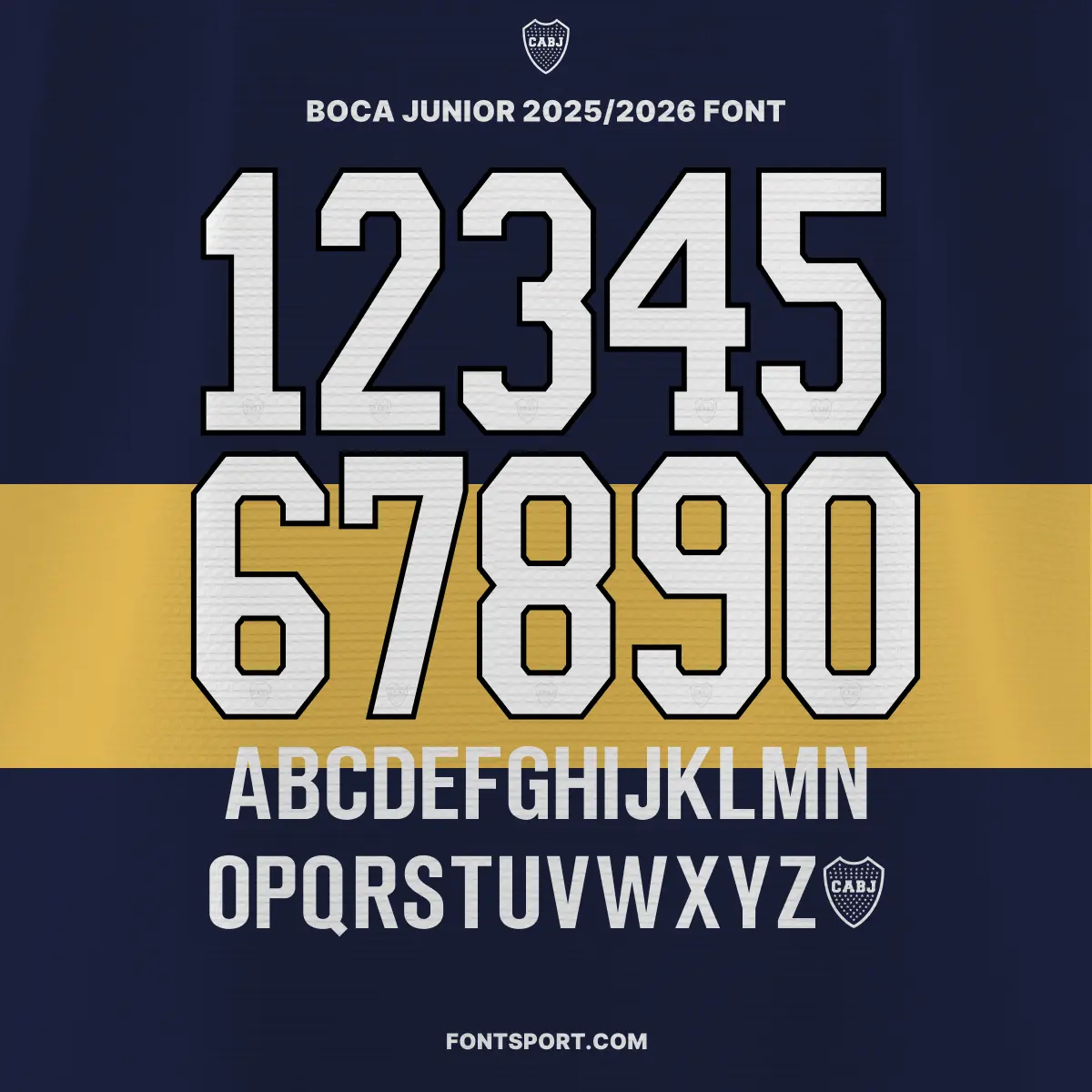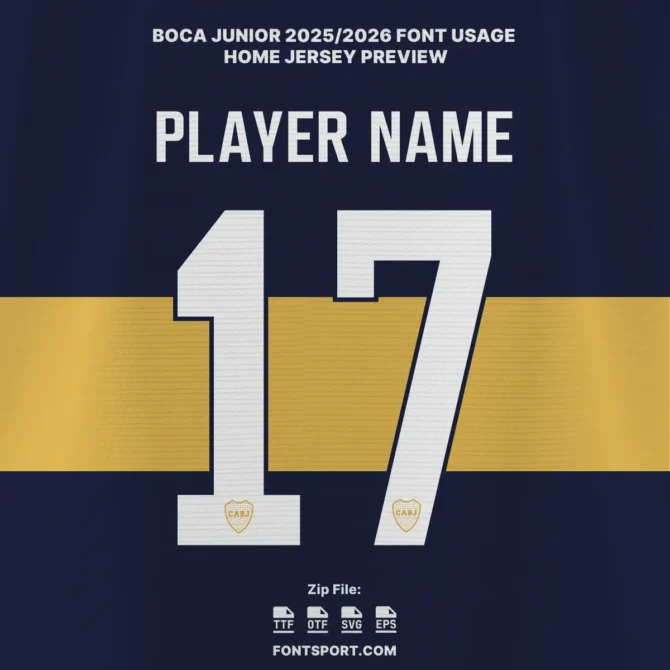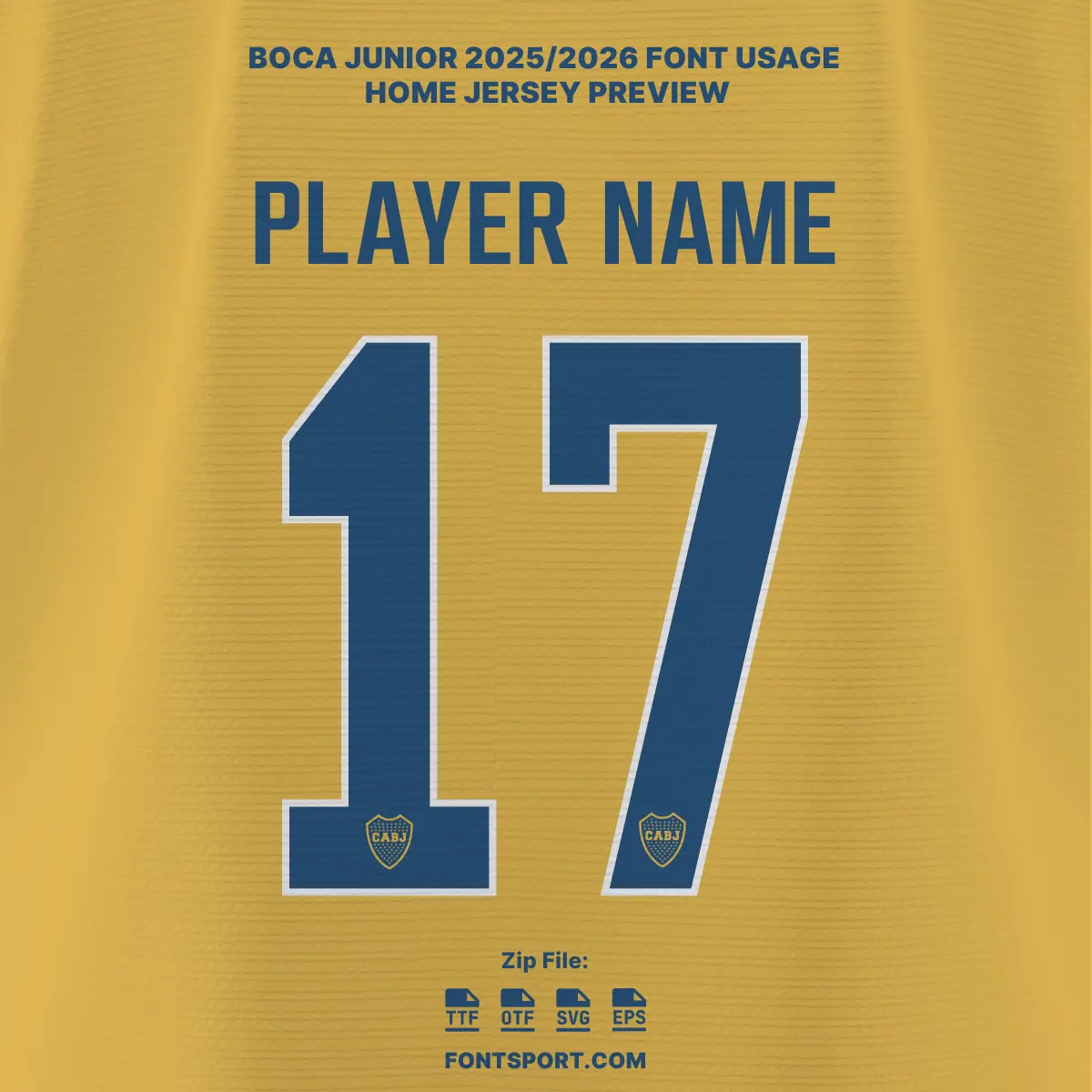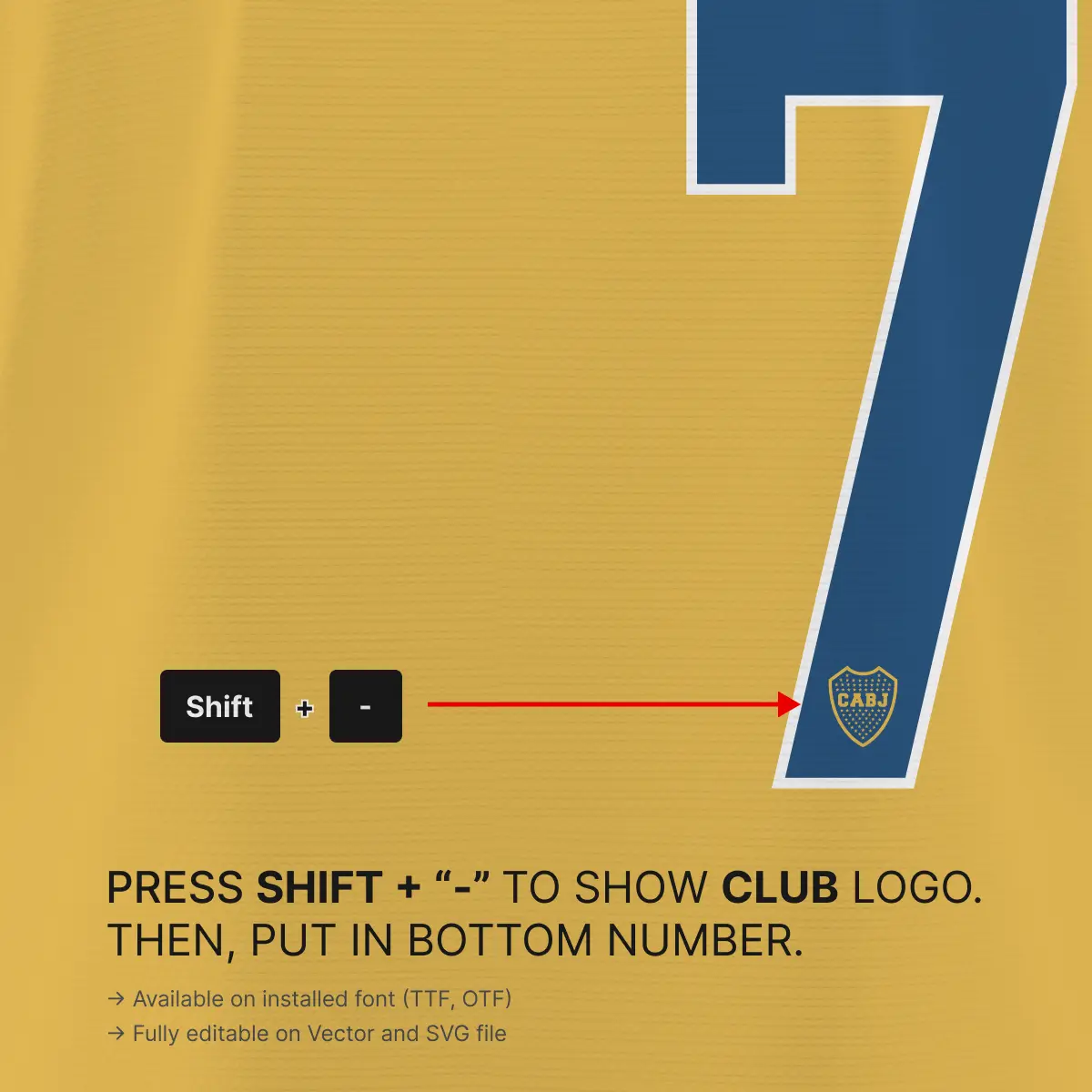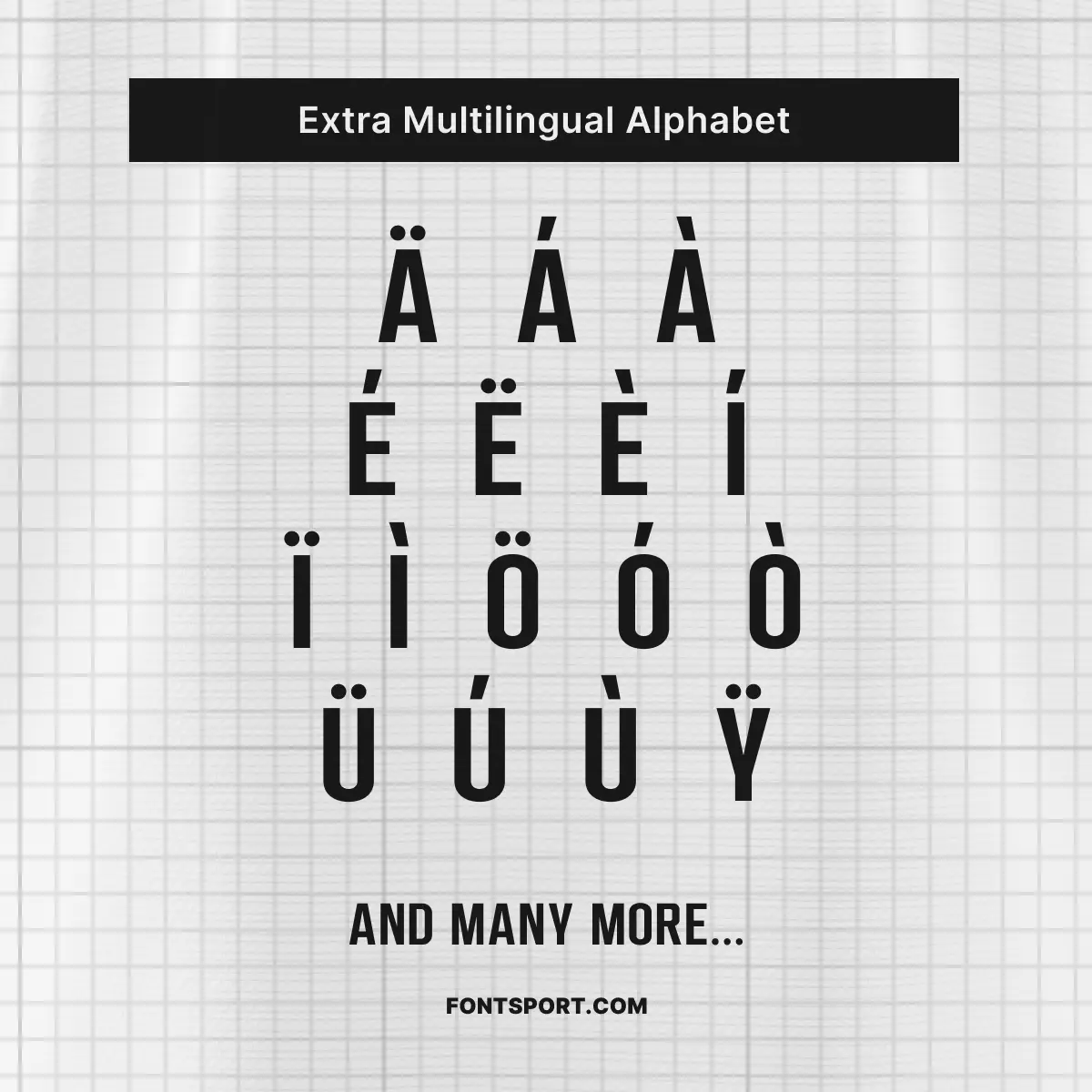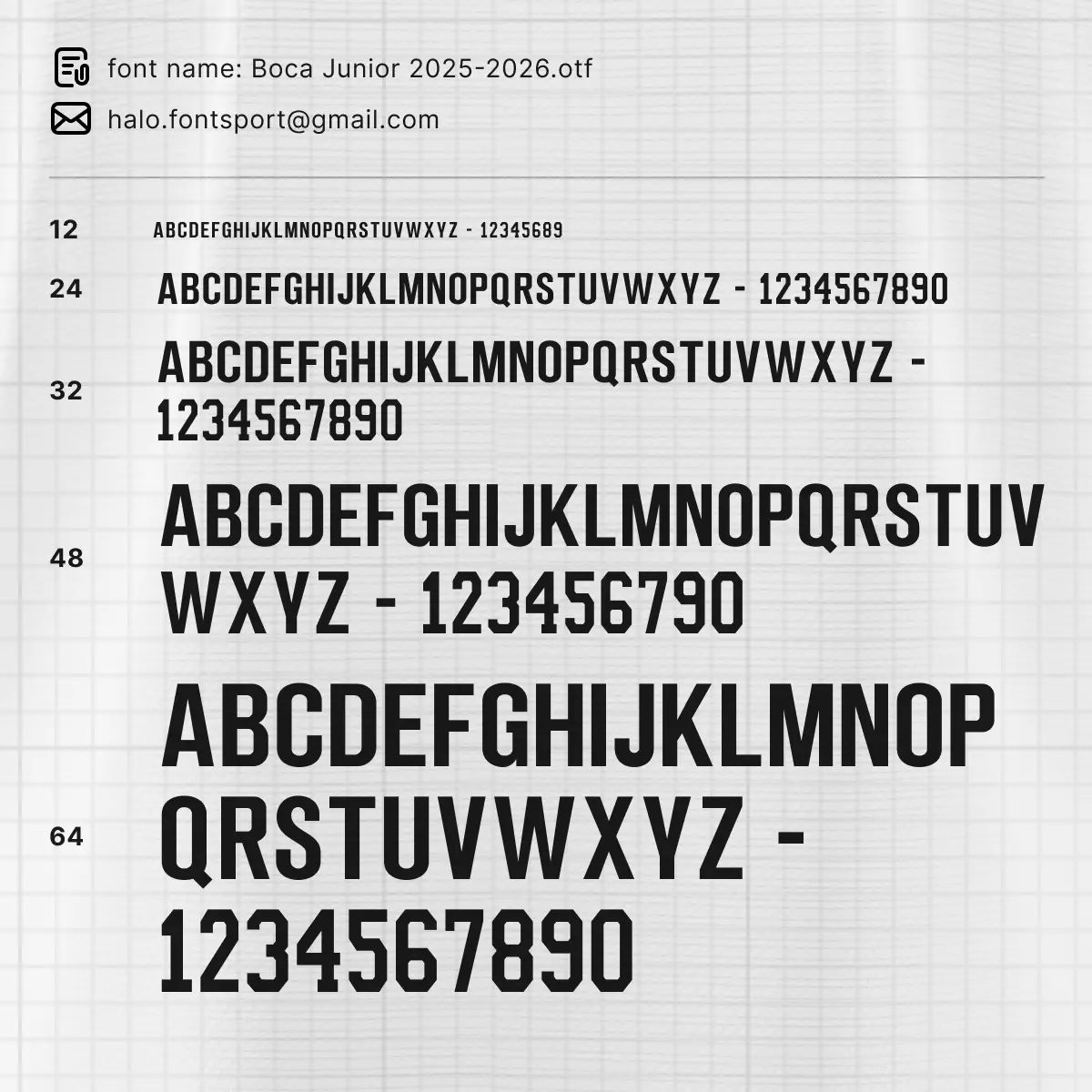
Boca Juniors 2025/2026 Font Kit – Argentine Primera División Typeface
The Boca Juniors Font Kit 2025/2026 is the official typeface featured on the club’s kits in the Argentine Primera División 2025/2026 season. Inspired by the club’s rich history and modern visual identity, this exclusive font combines bold precision, clean readability, and a unique crest-style detail that makes every number stand out on the famous blue and gold jersey.
Key Visual Identity of the Font
Crafted for high visibility on the pitch and digital platforms, the Boca Juniors 2025/2026 font showcases:
• Modern block style with sharp outlines for instant recognition.
• Balanced proportions for perfect legibility on jerseys, posters, and merchandise.
• Exclusive Boca Juniors crest embedded in the numerals for authentic branding.
• ✅ Full alphabet A–Z & numbers 0–9 in Boca’s 2025/2026 style
• ✅ Exclusive Boca Juniors crest logo glyph
• ✅ Multilingual Latin support with diacritics
Boca Juniors in the 2025/2026 Season
For the 2025/2026 Argentine Primera División, Boca Juniors continues to uphold its legendary status as one of South America’s most iconic clubs. With stars like Edinson Cavani and emerging young talents, the team blends experience with ambition. This exclusive font kit captures the spirit of Boca’s matchday identity, representing the passion of La Bombonera and millions of fans worldwide.
5. The available characters include uppercase letters (for player names), and numbers (for player jersey numbers).